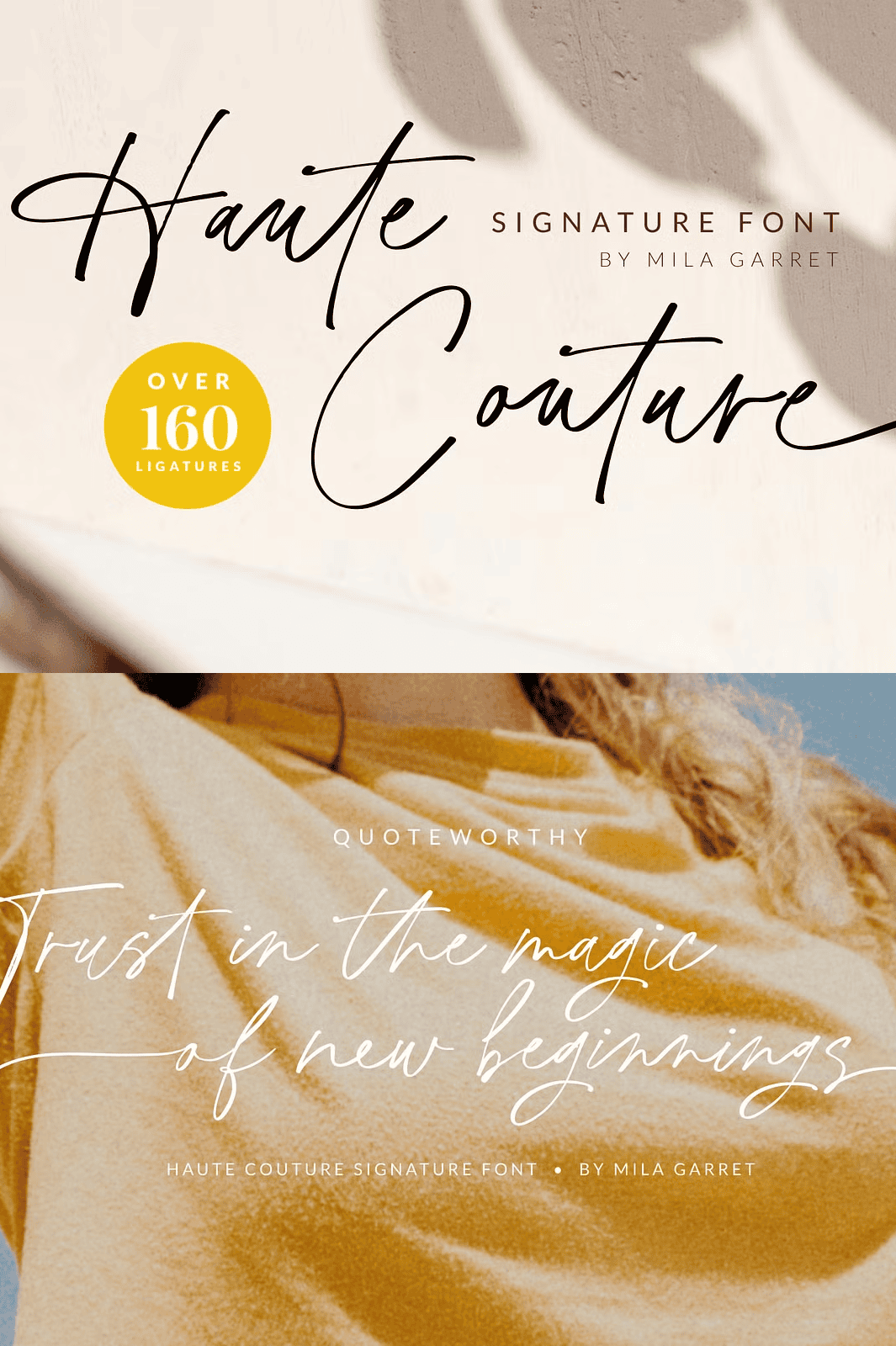
Reign Supreme with a Font That Speaks in Flair and Personality
Transform your creative projects with **Haute Couture**, the ultimate handwritten signature font engineered to deliver **high-impact, hand-crafted sophistication**. This is not just a script font — it’s your personal stamp of identity. From luxurious brand logos and romantic wedding stationery to powerful photographer watermarks and dynamic website headers, Haute Couture turns every letter into a statement.
Designed with a bold calligraphy soul, this font captures the emotion and uniqueness of handwritten lettering while delivering digital precision and scalability. Every stroke pulses with character. Every flourish exudes confidence. Let Haute Couture be your signature in print, online, and beyond — instantly recognizable, irresistibly elegant, and completely unforgettable.
Rich Typography Toolkit – Craft Your Unique Identity
Haute Couture is not a minimal font — it’s a comprehensive typographic arsenal built for creators who thrive on expression. Unlock a world of custom design with:
– **Heart Connectors** – Elegant ligatures that elegantly join lowercase letters, creating seamless, flowing lines that mimic true handwritten motion
– **Beginning Swashes** – Eye-catching extensions at the start of lowercase words for dramatic visual impact
– **Ending Swashes** – Graceful tails at the end of letters to add softness, motion, and refined detail
– **163 Unique Handwritten Ligatures** – A vast library of custom combinations that deliver a truly hand-lettered, artisanal look, eliminating repetitive or generic patterns
Whether you’re designing a wedding invitation that feels handwritten by a friend or a fashion label logo that screams exclusivity, Haute Couture gives you the tools to craft a **distinct visual voice**.
Global Ready – Multilingual Support for a Worldwide Reach
Create with confidence across languages and cultures. Haute Couture includes full support for **international characters**, expanding its expressive power to global creators and audiences:
– Extended Latin with diacritics: ÁÂÄÀÅÃÆÇÐÉÊËÈÍÎÏÌÑÓÔÖÒØÕŒÞÚÛÜÙẂŴẄẀÝŶŸỲ
– Central European: ŠŽšž
– Currency Symbols: € £ ¥
– Special Characters: ª º
This makes it ideal for multilingual logos, international branding campaigns, multilingual wedding invites, and global digital content — all with consistent elegance.